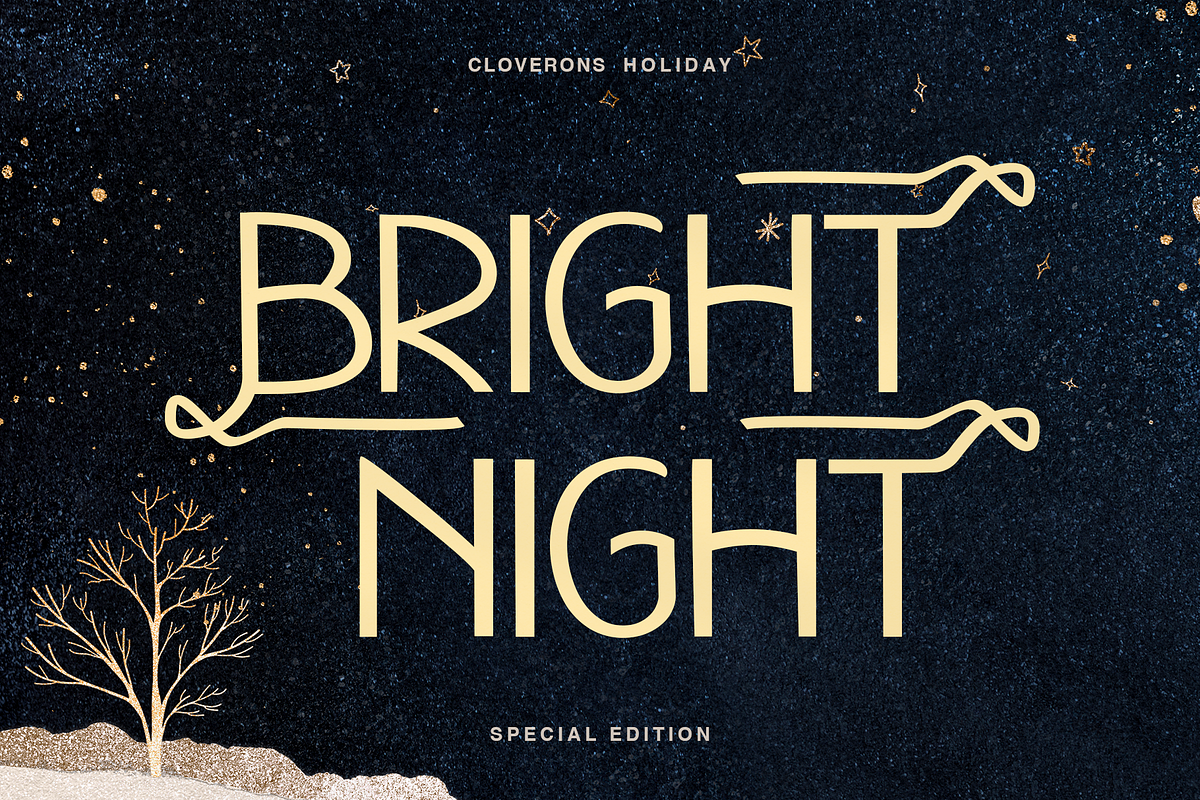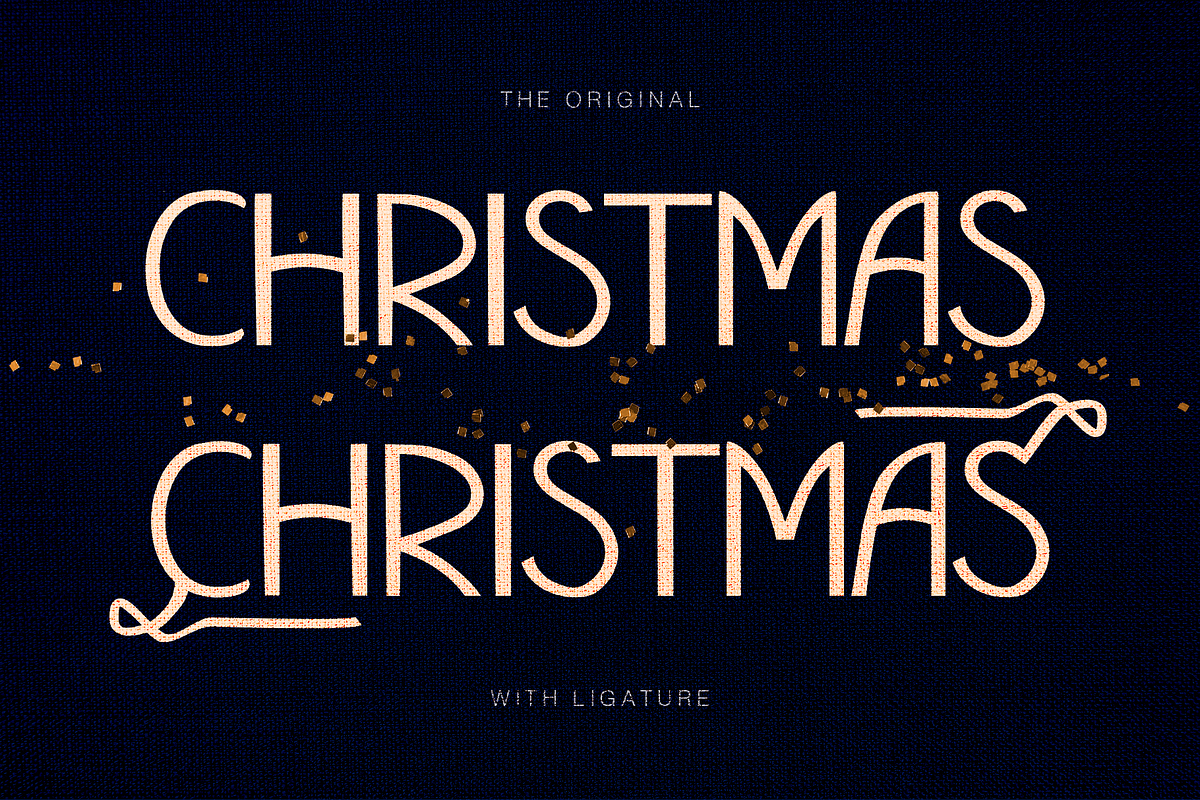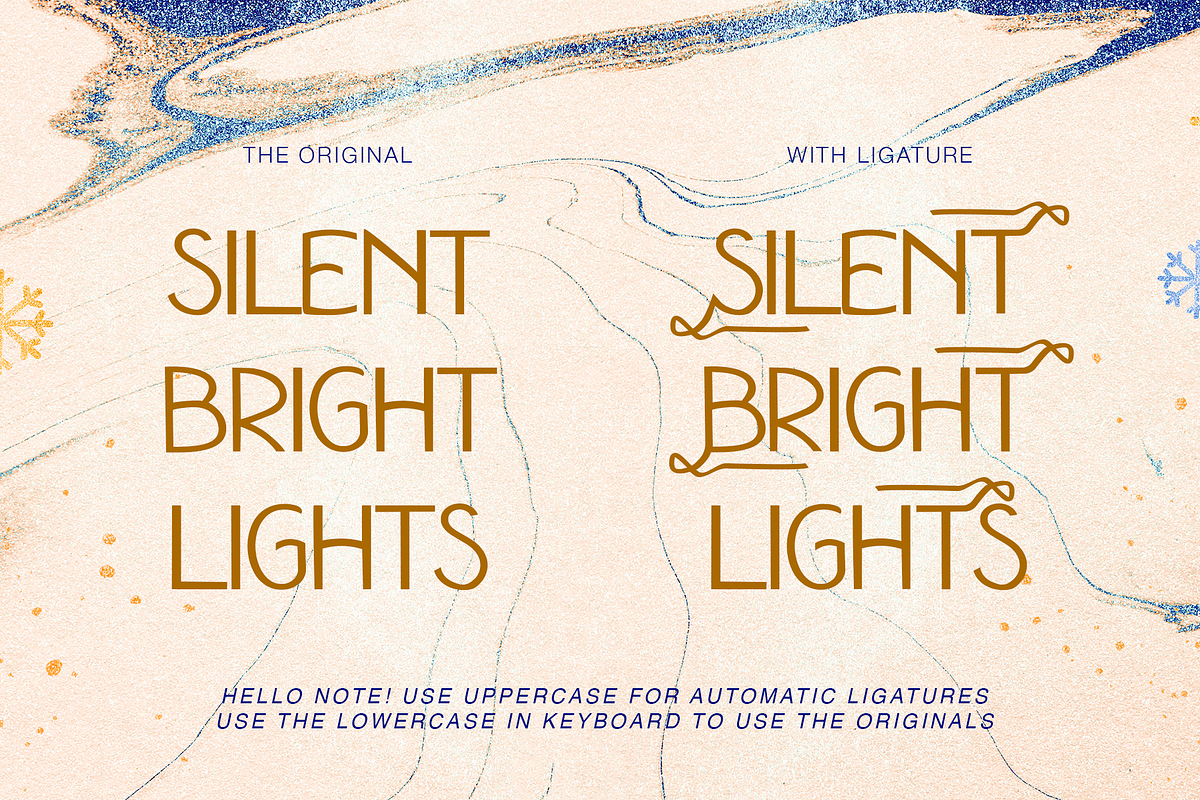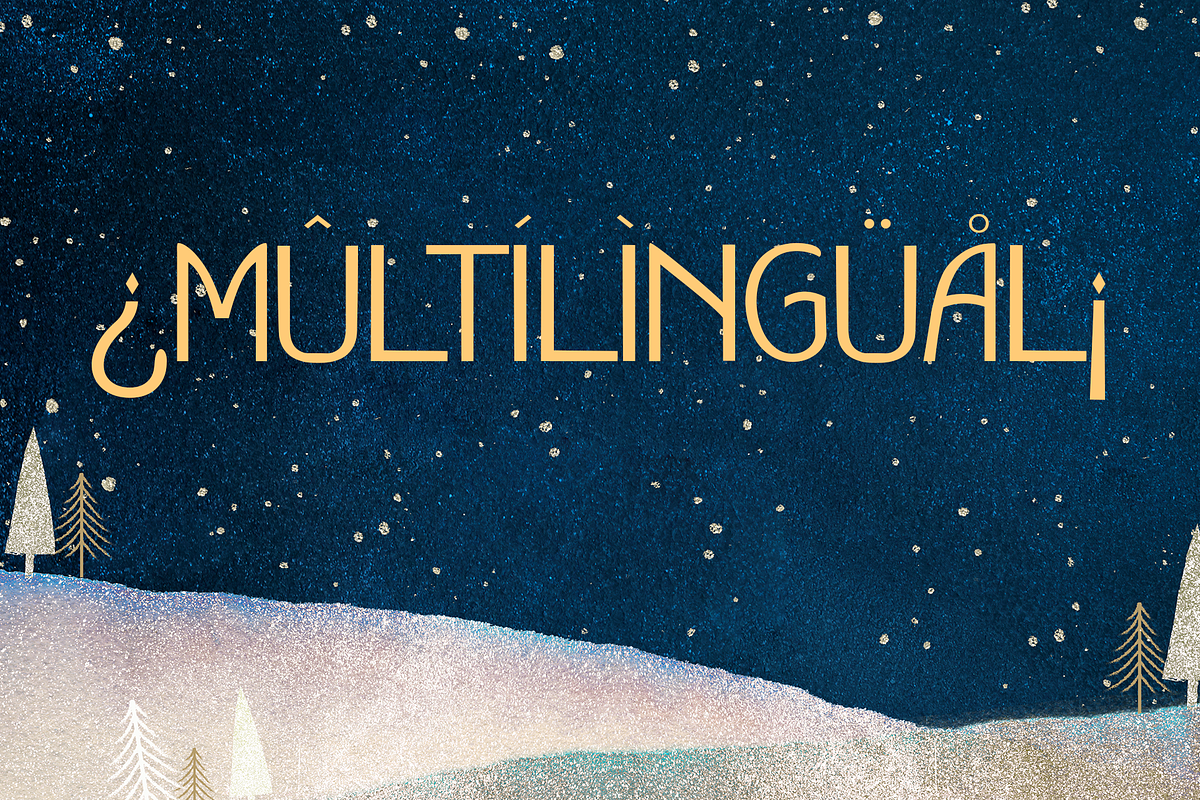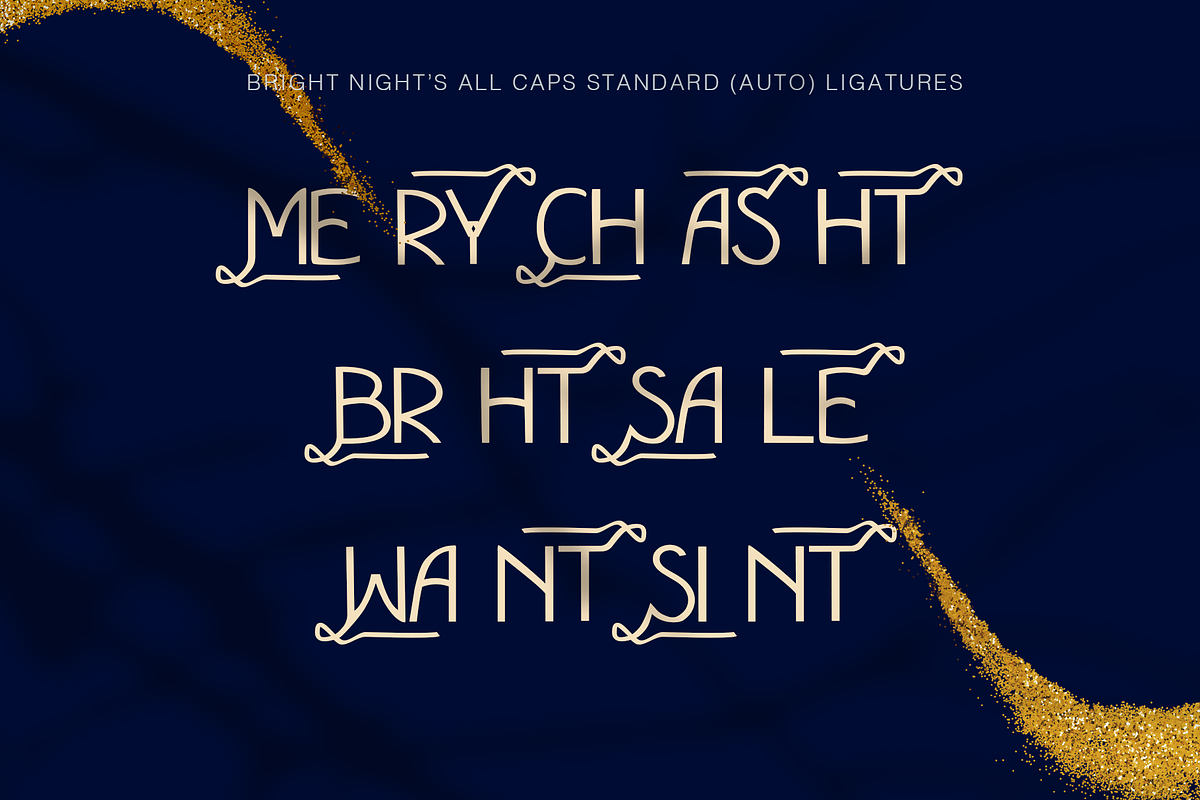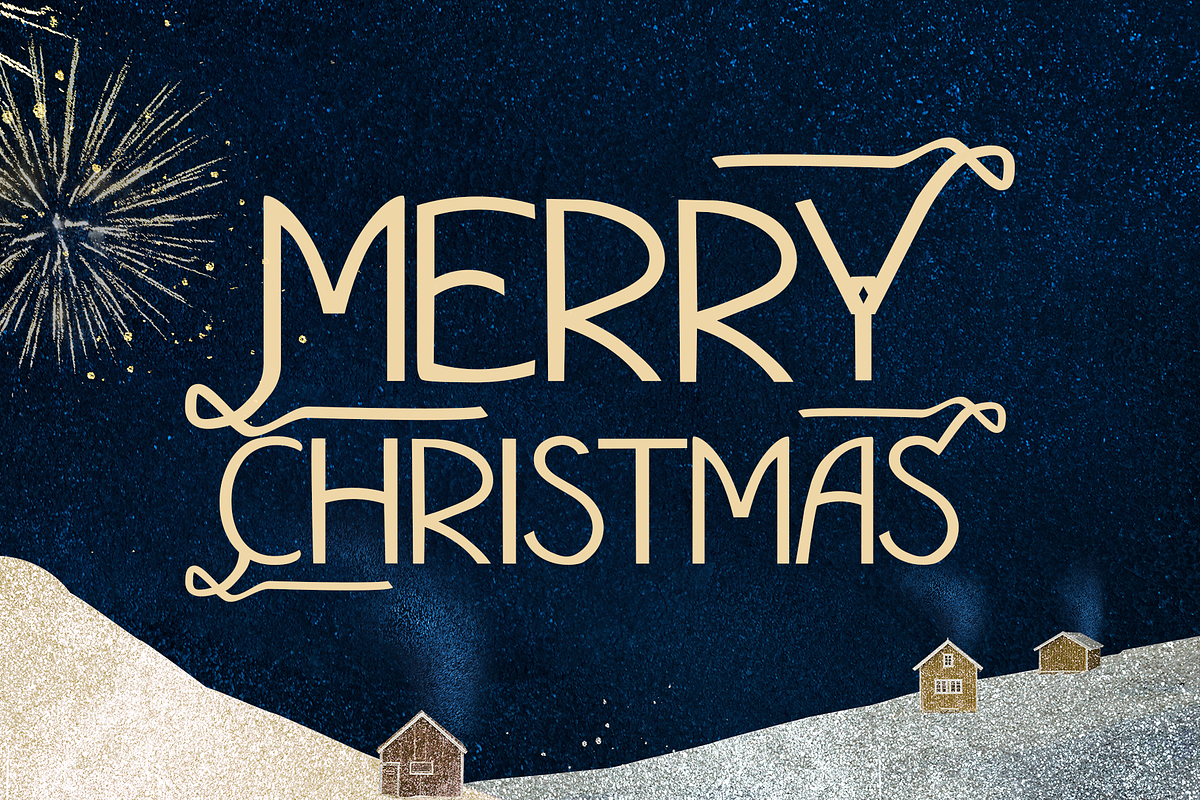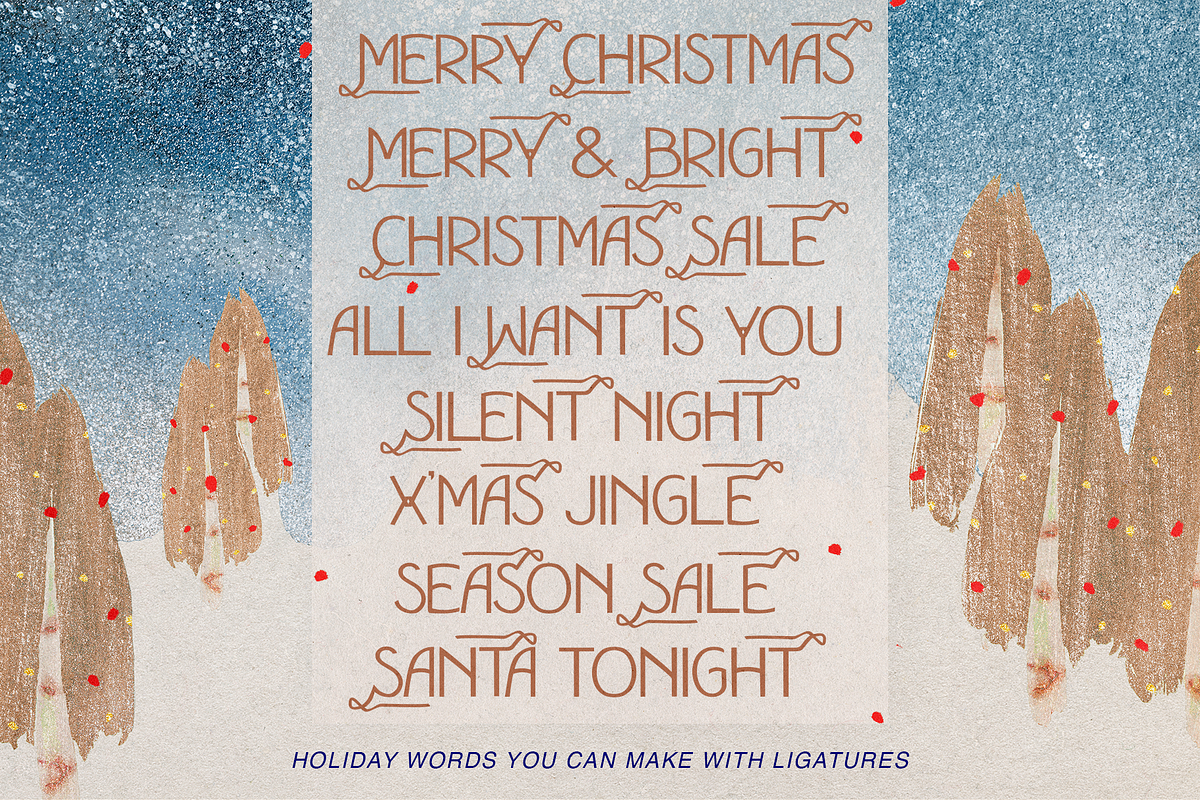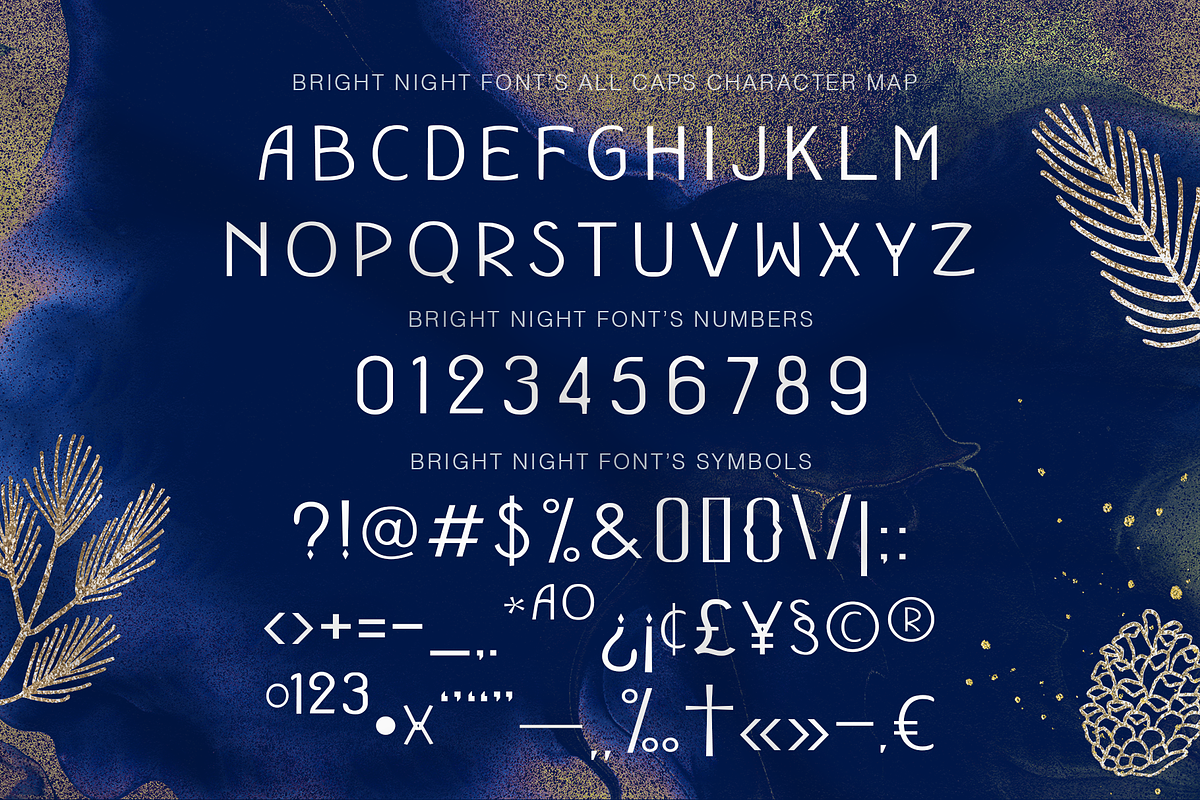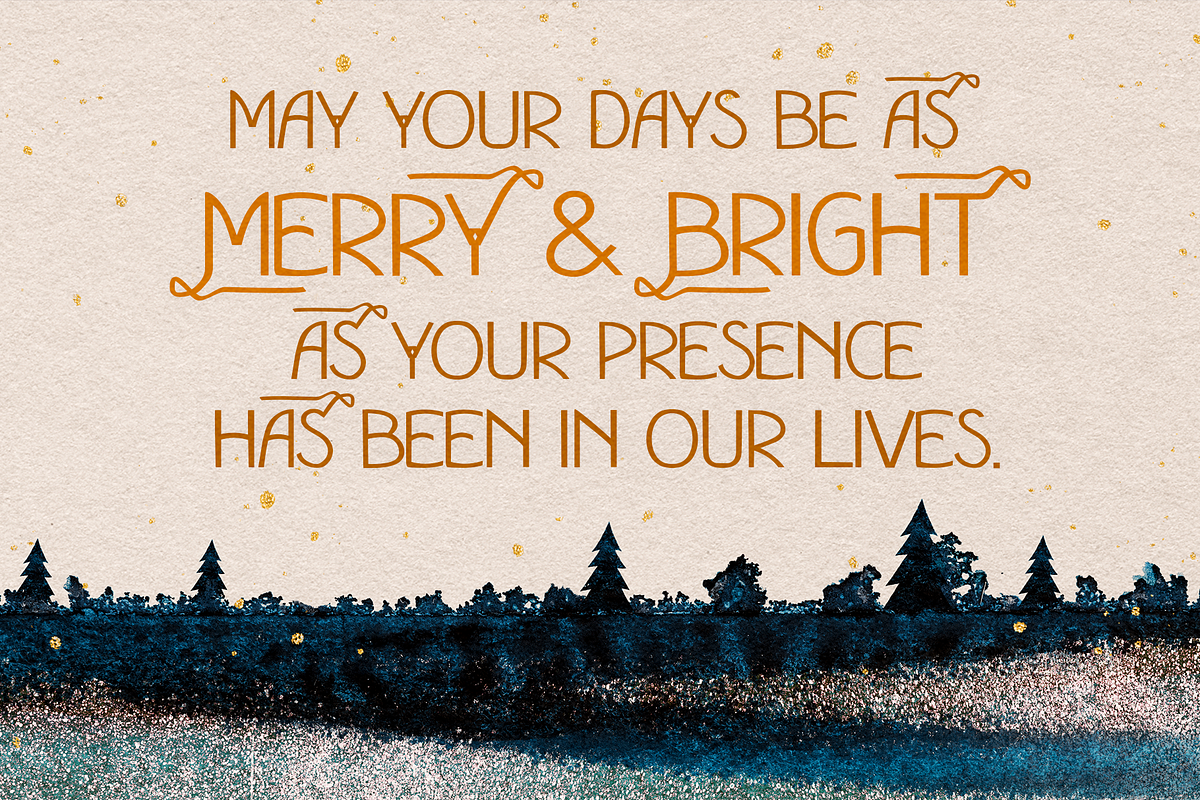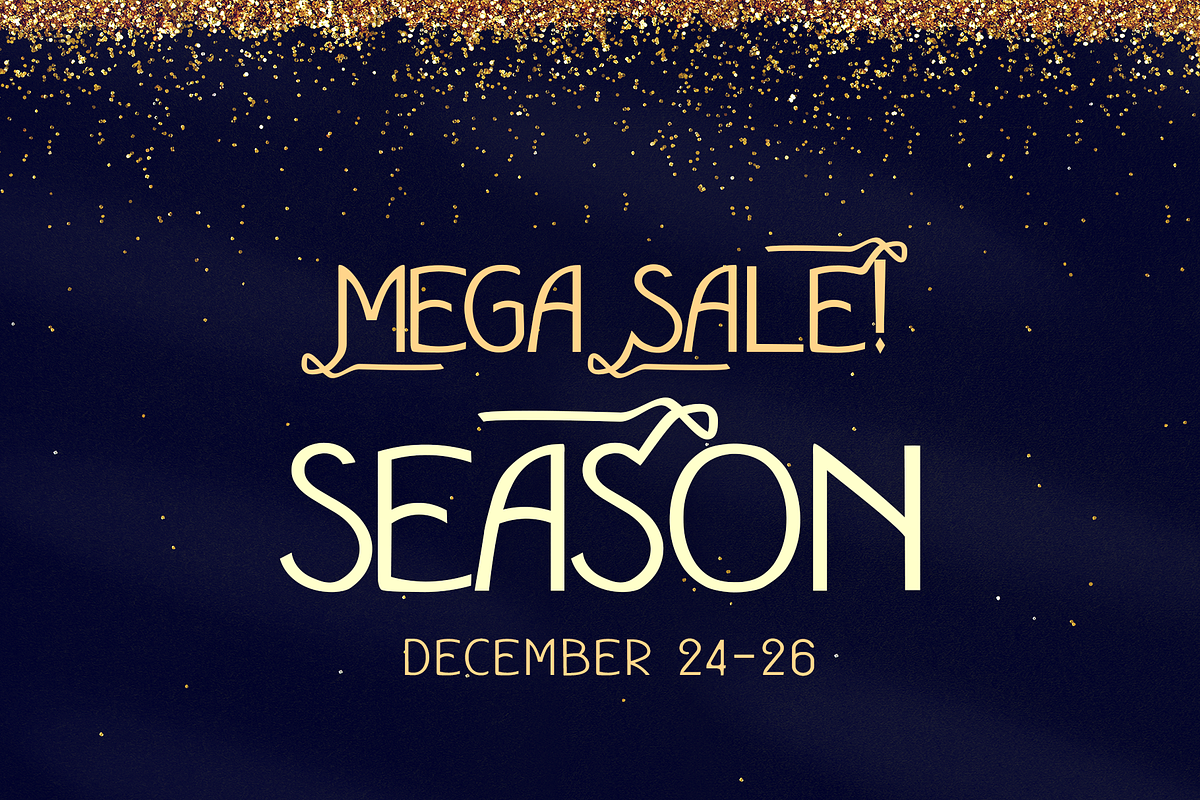
Bright Night Xmas Holiday Display
Meet Bright Night, a new Christmas Holiday Display Typeface of the 21st century. It has a modern minimalist style and comes with swashy, ribbon ligatures designed to remind customers of the gift-giving season. :) I intentionally made this font's ligature so you can make holiday words and promotional banners to use for your social media posts, advertising, and greeting cards this Holiday Season!
- Weight - Regular
- All Capital Characters
- Minimalist Ribbon Ligatures
- Multilingual Characters
- Language Support: Western Europe